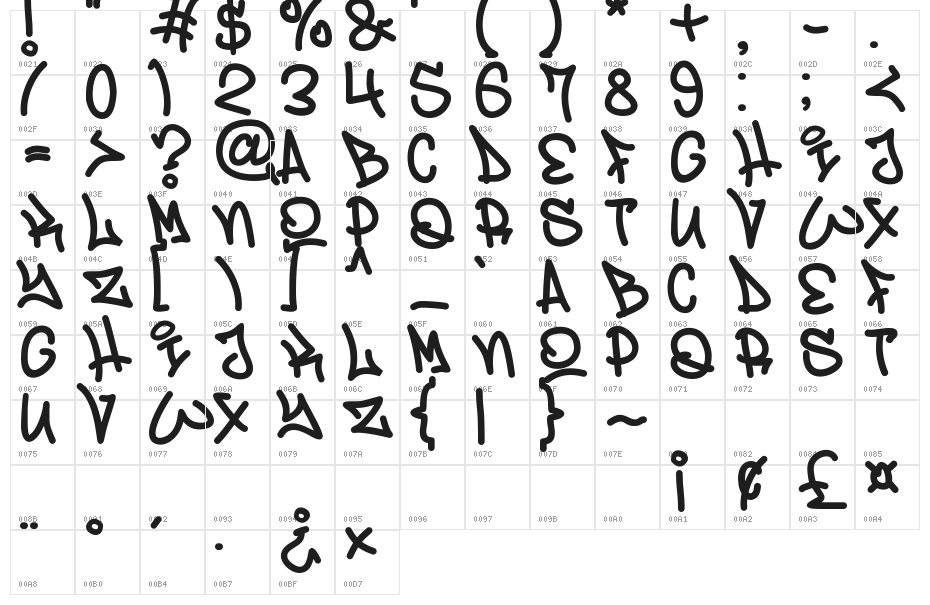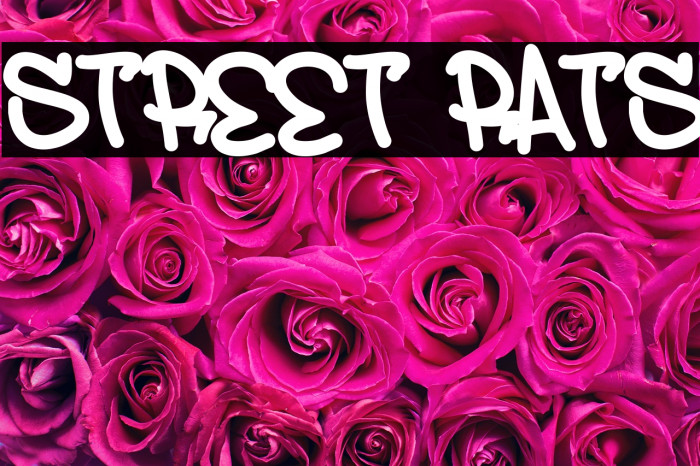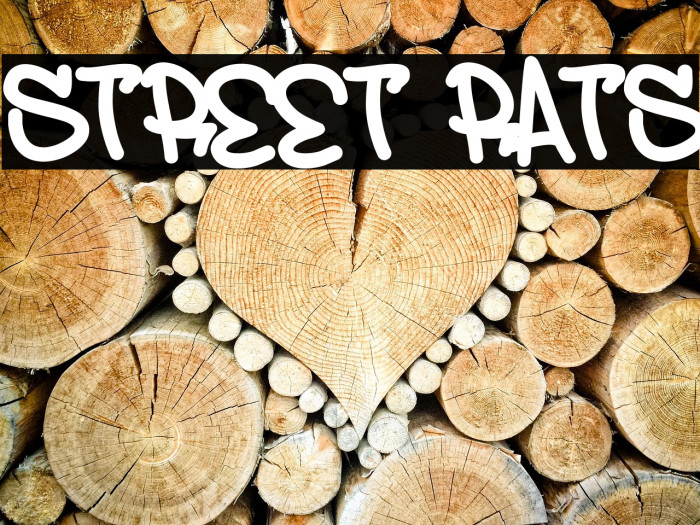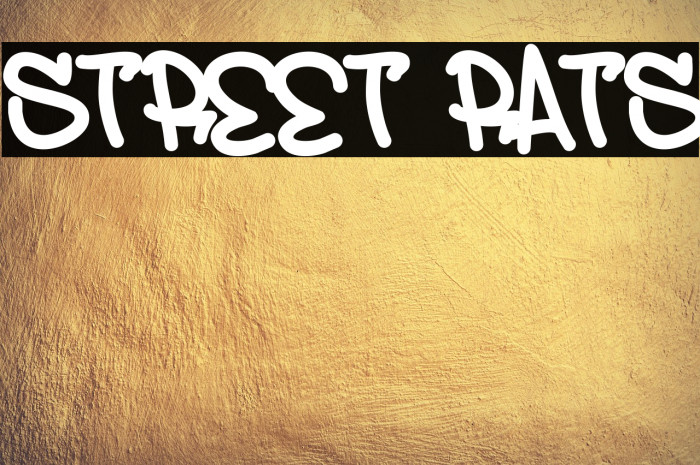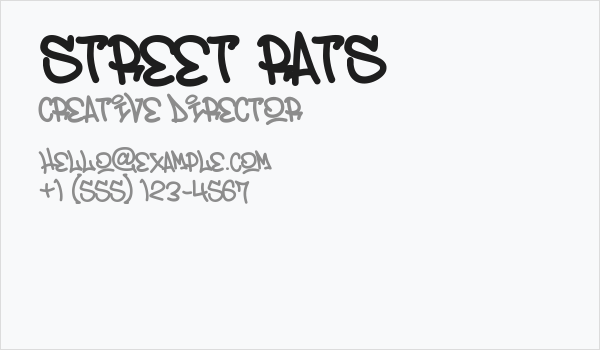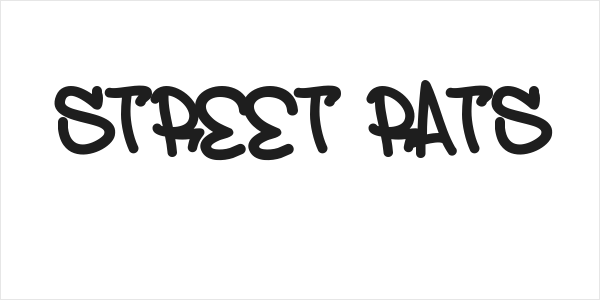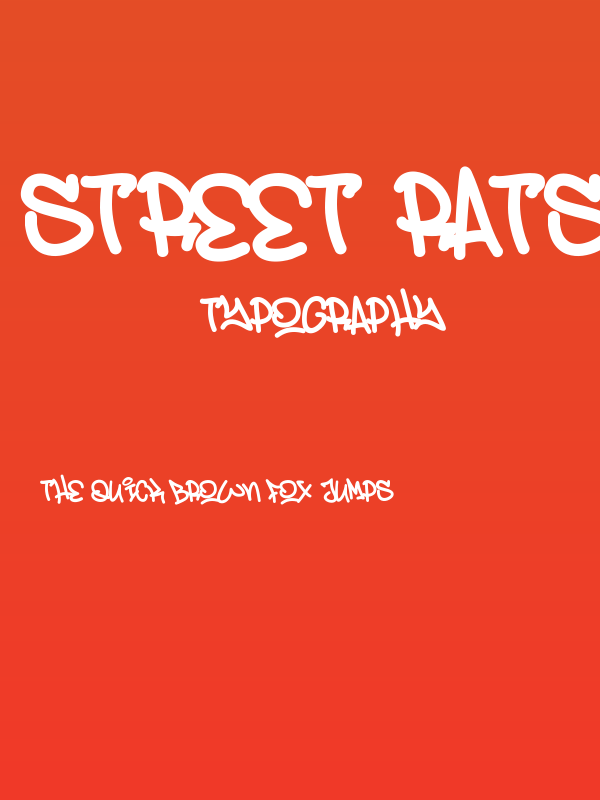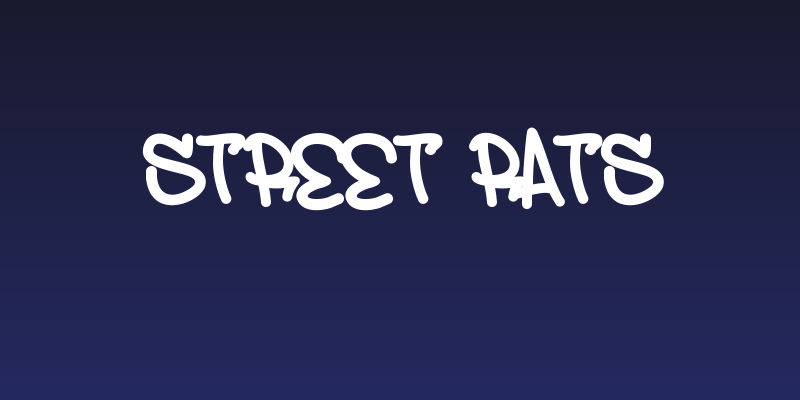
Street Rats Font
Street Rats Description
This font exudes a bold, urban graffiti style, characterized by its dynamic and energetic strokes. The letters are crafted with a playful, yet rebellious flair, featuring exaggerated curves and sharp angles that mimic the spontaneous nature of street art. The uppercase and lowercase letters maintain a consistent style, with a slightly condensed form that enhances its edgy appearance. Numbers and special characters follow the same aesthetic, ensuring a cohesive look across all text elements. The font's thick lines and high contrast make it stand out, ideal for capturing attention in bold statements.
Overall StyleUrban, Graffiti, Bold
Proposed ProjectsPerfect for street art projects, urban-themed designs, music album covers, and edgy branding.